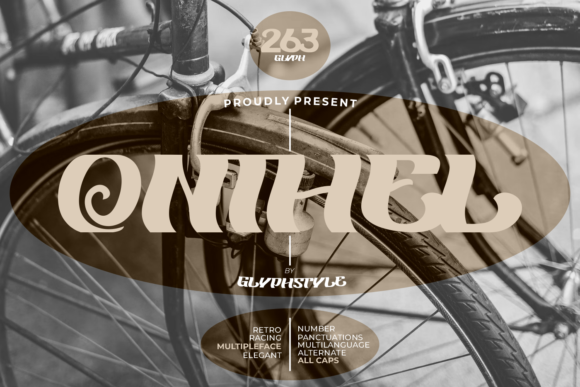
**Introducing Onthel: The Bold and Beautiful Slab Serif Font That Will Make Your Designs Unforgettable**
In a world saturated with ordinary typefaces, Onthel emerges as a breath of fresh air, a font that captivates with its striking boldness and exquisite elegance. This modern and cool slab serif font, crafted by the talented glyphstyle, is a versatile masterpiece that can transform your creative projects into captivating works of art.
**A Font Family That's More Than Just a Collection**
Onthel is not just a font; it's a family of fonts, each with its unique personality. From the sleek and streamlined Racing face to the retro-inspired charm of the Retro face, and the timeless sophistication of the Elegant face, Onthel offers a diverse range of styles that cater to every design need.
**Unleash Your Creativity with Limitless Possibilities**
With Onthel, your creativity knows no bounds. Whether you're working on branding projects, designing logos, creating wedding invitations, or crafting social media posts, Onthel's bold shape and beautiful alternate stylistics will add a touch of sophistication and uniqueness to your work.
**The Perfect Font for Making a Statement**
In a world where sameness reigns supreme, Onthel is a font that stands out from the crowd. Its bold presence commands attention, making it the perfect choice for creating impactful advertisements, eye-catching product packaging, and distinctive product designs.
**Elevate Your Designs to New Heights**
With Onthel, you can elevate your designs to new heights, transforming them into captivating masterpieces that leave a lasting impression. Its versatility and beauty make it the perfect choice for labels, photography, watermarks, invitations, stationery, and any project that demands unique typography.
**Unlock the Power of PUA Encoding**